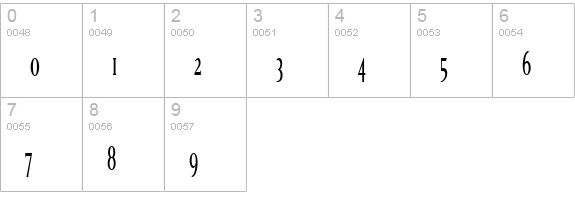
MatrixNarrowOldstyle Regular Font Details
MatrixNarrowOldstyle Regular is the standard, neutral variant in the MatrixNarrowOldstyle typeface family \xE2\x80\x94 well suited to general body text, paragraphs, and standard typographic work.
MatrixNarrowOldstyle Regular font is a classic and elegant typeface that exudes a timeless charm. With its slender and sophisticated design, this font is perfect for adding a touch of refinement to any project. The delicate serifs and graceful curves of MatrixNarrowOldstyle Regular give it a sense of grace and sophistication, making it ideal for a wide range of design applications. Best of all, MatrixNarrowOldstyle Regular font is available for free download at FontsMarket.com. This means that you can easily access this beautiful typeface and use it in your designs without any cost. Whether you're creating elegant invitations, stylish branding materials, or eye-catching posters, MatrixNarrowOldstyle Regular font is sure to elevate your design to the next level. Download it today and add a touch of timeless elegance to your projects.